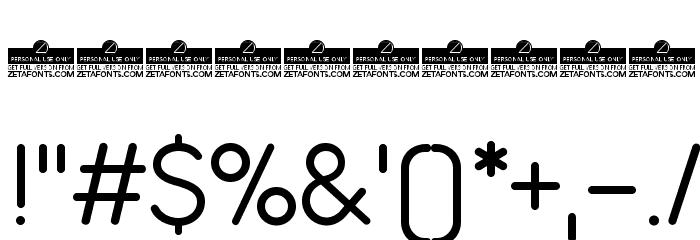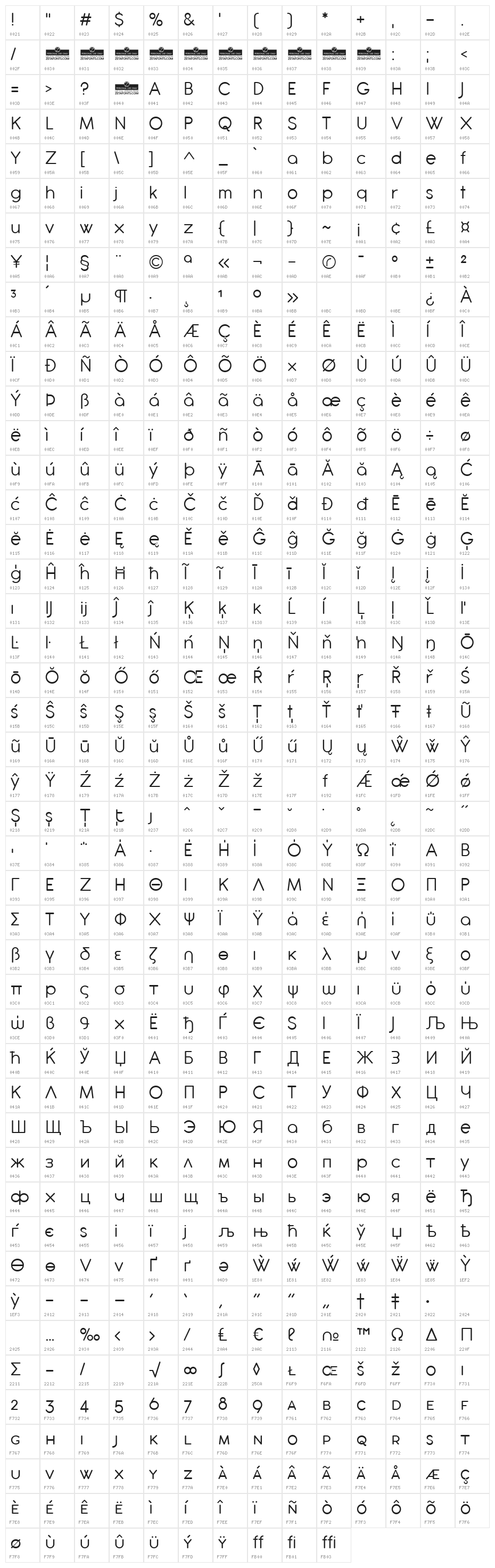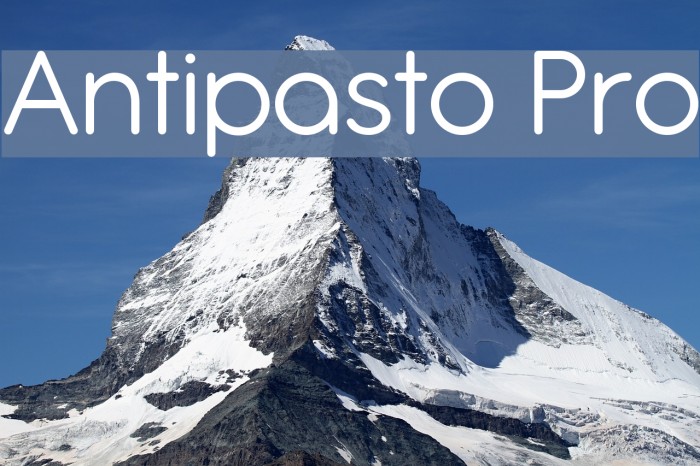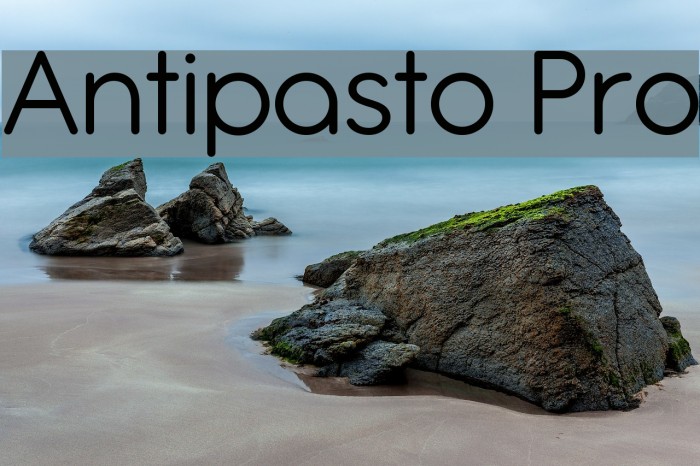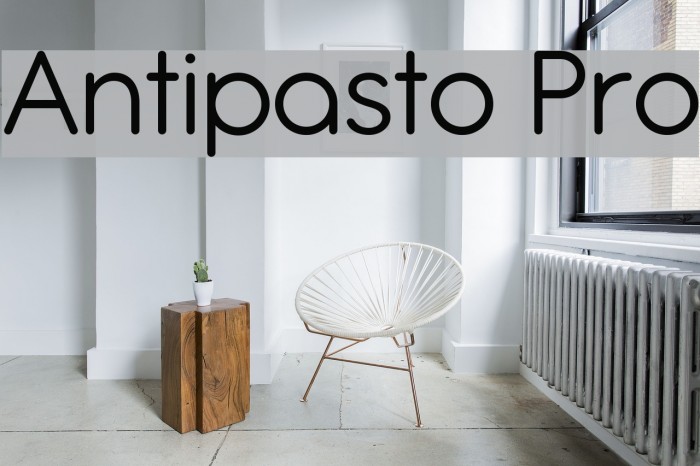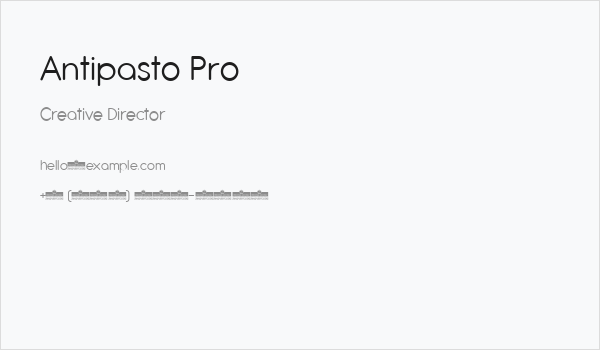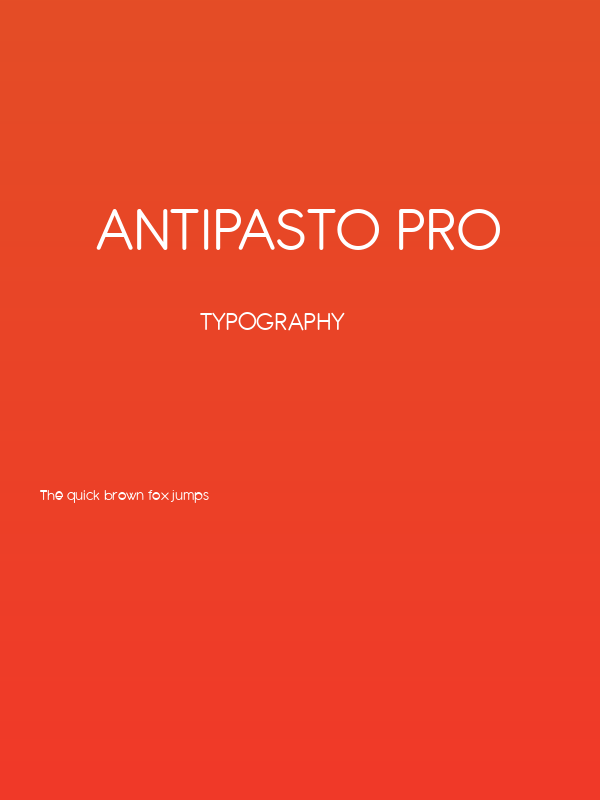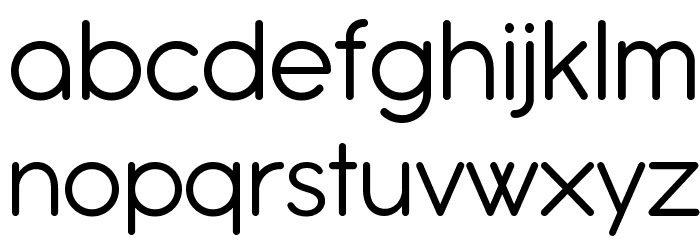
Antipasto Pro Font
Antipasto Pro Description
This font features a clean and modern sans-serif style with smooth, rounded edges that give it a friendly and approachable appearance. The characters are evenly spaced, contributing to its readability. The uppercase and lowercase letters maintain a consistent design, with a slight geometric influence visible in the uniformity of the strokes. The numerals and special characters are designed to match the overall aesthetic, ensuring a cohesive look across all text elements. This font's simplicity and clarity make it versatile for various design applications.